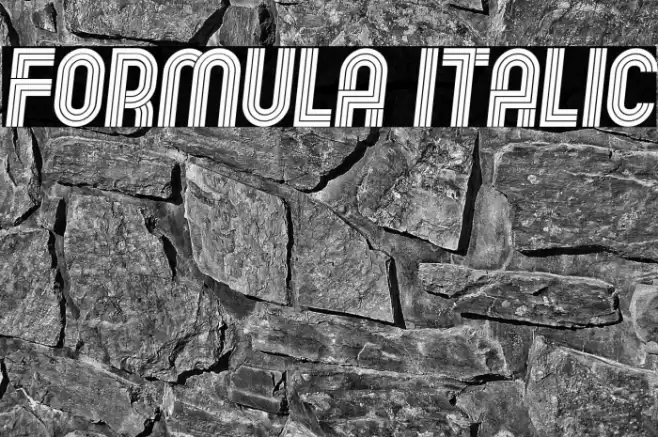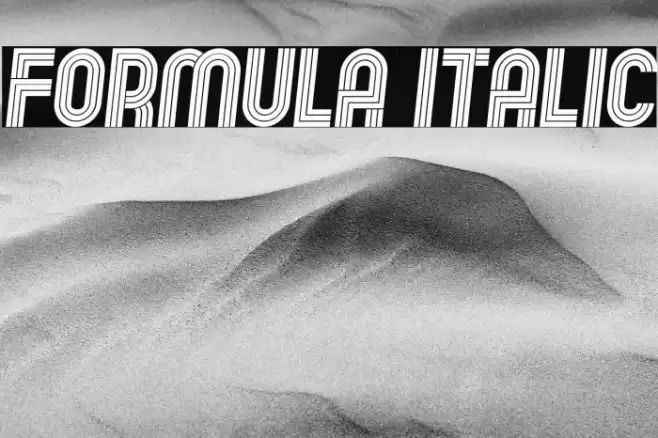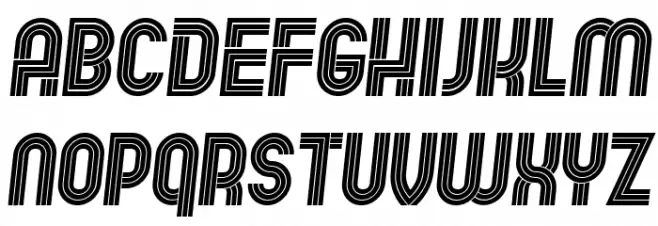
Formula Italic Font
Formula Italic Description
This font features a bold, geometric design with a distinct italic slant, creating a sense of motion and dynamism. The characters are constructed with multiple parallel lines, giving a layered, three-dimensional effect. This design choice adds depth and complexity, making it visually striking and ideal for attention-grabbing applications. The uppercase letters are uniform in height, while maintaining a consistent width, contributing to a balanced and cohesive appearance. The font's unique style is both modern and retro, reminiscent of vintage racing or sports branding, yet it maintains a contemporary edge. The absence of lowercase letters suggests a focus on impactful, headline-style usage.
A bold, geometric italic font with layered lines for a dynamic, modern-retro look from Uncategorized fonts.
- Proposed Projects: Ideal for sports branding, event posters, automotive designs, and dynamic headlines.
- Overall Style: Modern, Retro